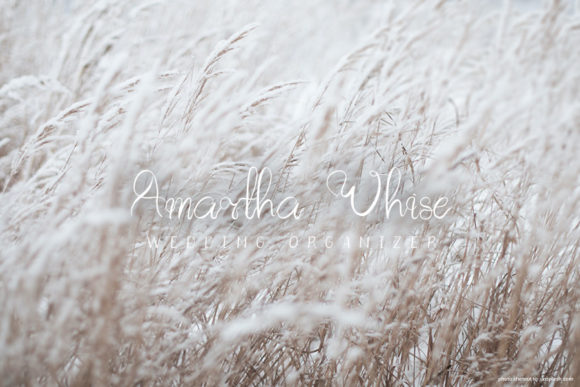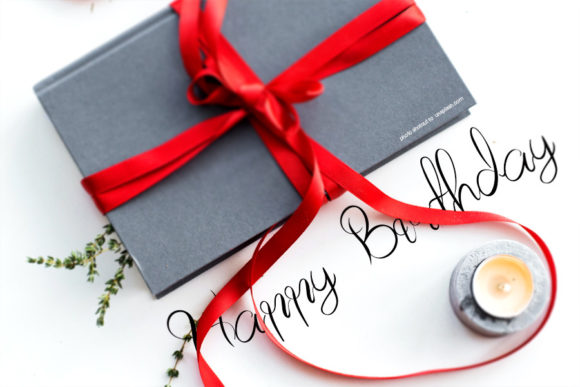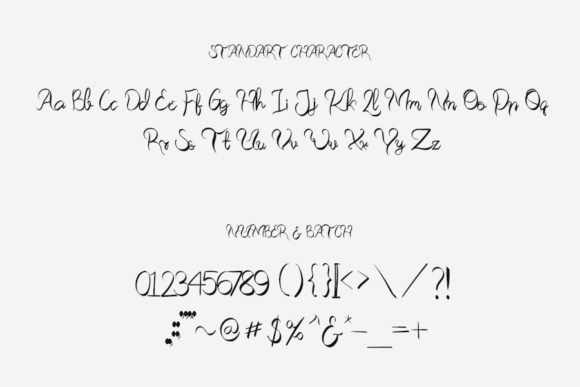
Introduction to Lunar Wave Font
Have you ever been on a creative roll, where your ideas just flow effortlessly onto the page? That’s exactly what happened to me when I stumbled upon the Lunar Wave Font. Its unique, handwritten charm instantly captured my attention, and I knew I had to share it with fellow designers. As a go-to design resource, this font has quickly become a staple in my creative arsenal, and I’m excited to dive into its features and benefits.
For designers looking to add a touch of elegance and sophistication to their projects, the Lunar Wave Font is a game-changer. With its high-quality design and transparent background, it’s perfect for creating eye-catching logos, branding, and quotes. Whether you’re working on a free download or a paid project, this font is sure to elevate your designs and make them truly stand out.
Key Features of Lunar Wave Font
- Unique, hand-drawn design with a dreamy, ethereal feel, perfect for creative projects.
- Transparent background, allowing for seamless integration into your design without any distractions.
- Available in 7 different font weights, from light to bold, providing flexibility for various design needs.
- Perfect for use in digital design, including websites, social media graphics, and presentations, as well as print materials like posters and flyers.
- Designed as a design resource for creatives, ideal for use in a variety of creative projects, from branding to editorial content.
Honest Review: Lunar Wave Font
I recently had the chance to work with the Lunar Wave Font, and I must say it’s been a game-changer for my creative project. ✨ The font’s unique, futuristic design has added a touch of sophistication to my designs, making them stand out in a crowded market.
Here are some of the things that work well with the Lunar Wave Font:
- High-quality design: The font’s crisp lines and smooth curves make it perfect for digital designs.
- Transparent background: This feature allows me to easily integrate the font with other design elements and backgrounds.
While the Lunar Wave Font is an excellent design resource, there are a few limitations to consider:
- Limited customization options: Some designers may find the font’s fixed design to be restrictive.
- Not ideal for print designs: The font’s digital design may not translate well to print materials.
Overall, I’m impressed with the Lunar Wave Font and would highly recommend it to designers working on creative projects. With its high-quality design and transparent background, it’s a great addition to any design arsenal.
Tips for Getting the Most Out of Lunar Wave Font
To get the most out of the Lunar Wave Font, use it in creative projects where a unique, high-quality font is needed. The font’s transparent background makes it easy to layer over other design elements, and its high quality ensures that it will look great even at larger sizes.
The Lunar Wave Font is commonly used in branding, packaging, and advertising projects. Its unique design and high quality make it an ideal choice for creative projects where a memorable and eye-catching font is needed.
What is the recommended resolution for using the Lunar Wave Font?
For optimal results, we recommend using the Lunar Wave Font at a minimum resolution of 300 DPI. This ensures that the font appears crisp and clear, even when scaled up or used in high-resolution designs. You can also use the font at higher resolutions for even more detailed and precise designs.